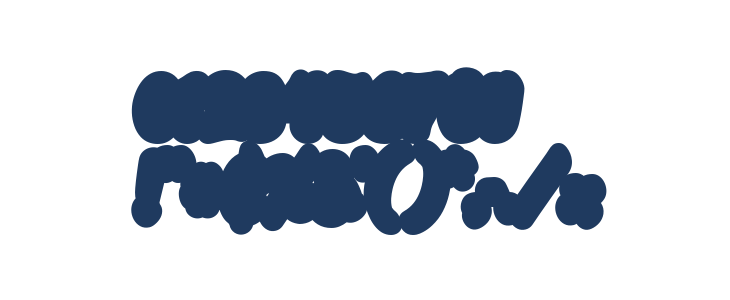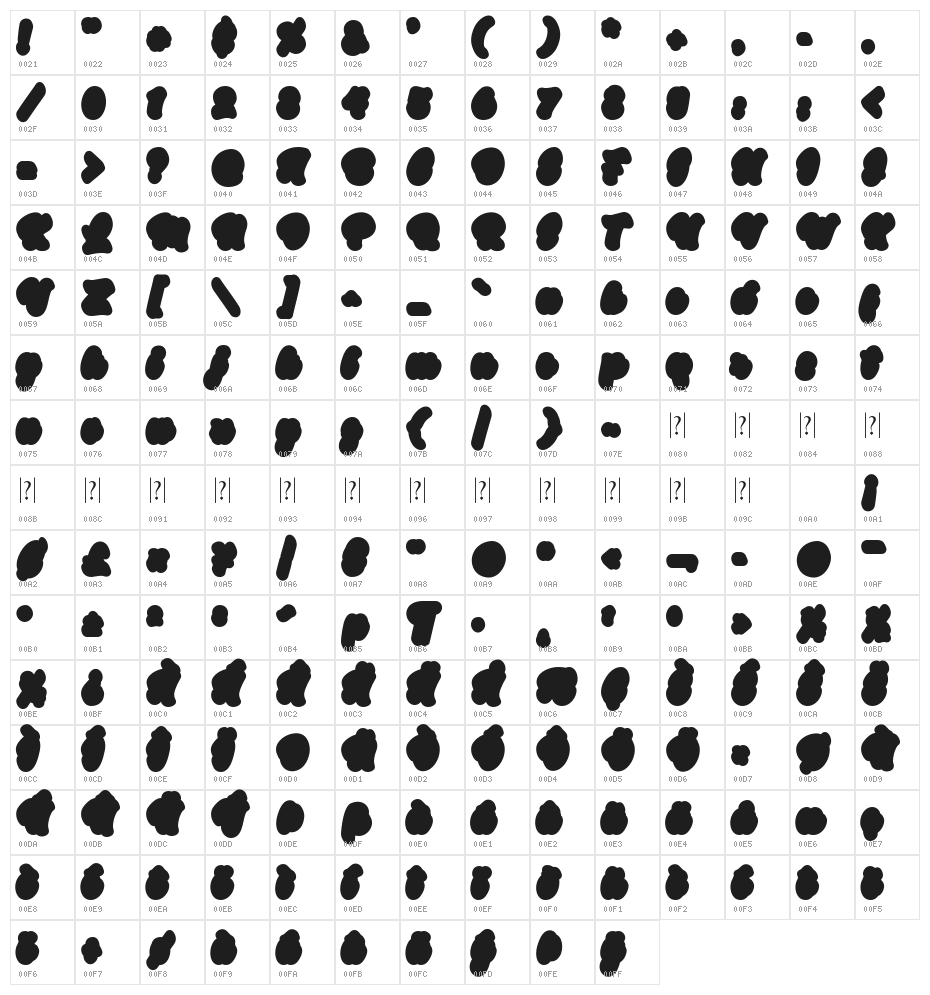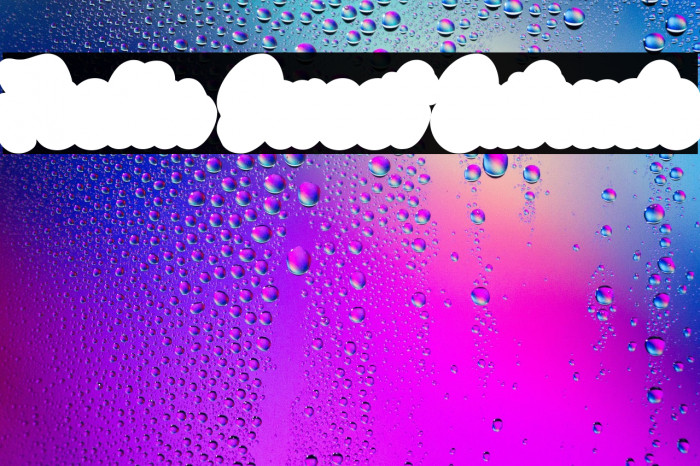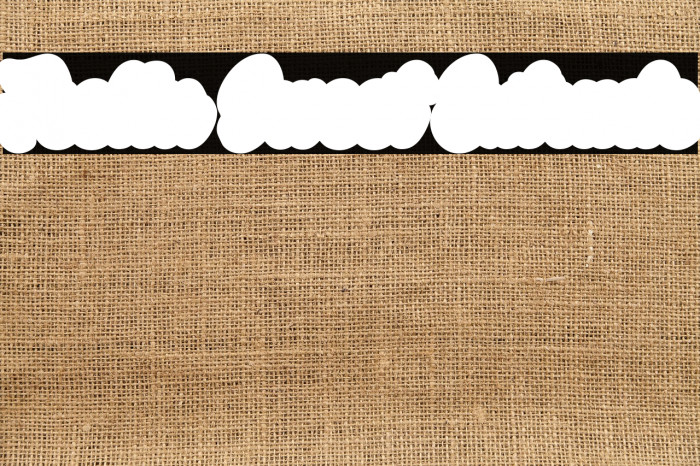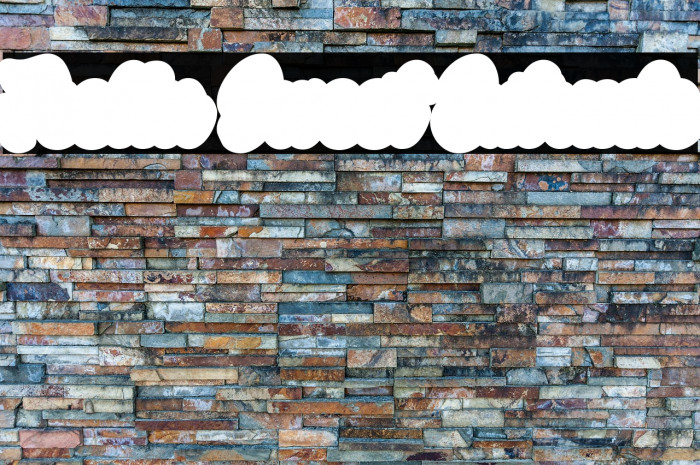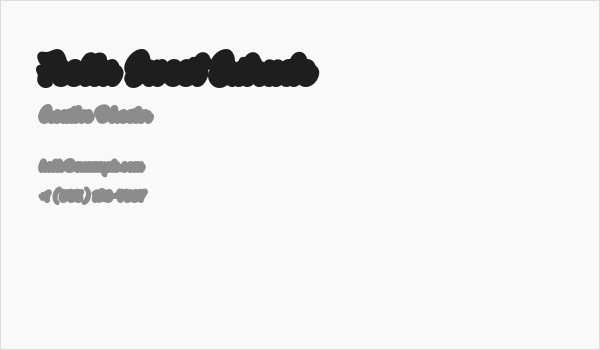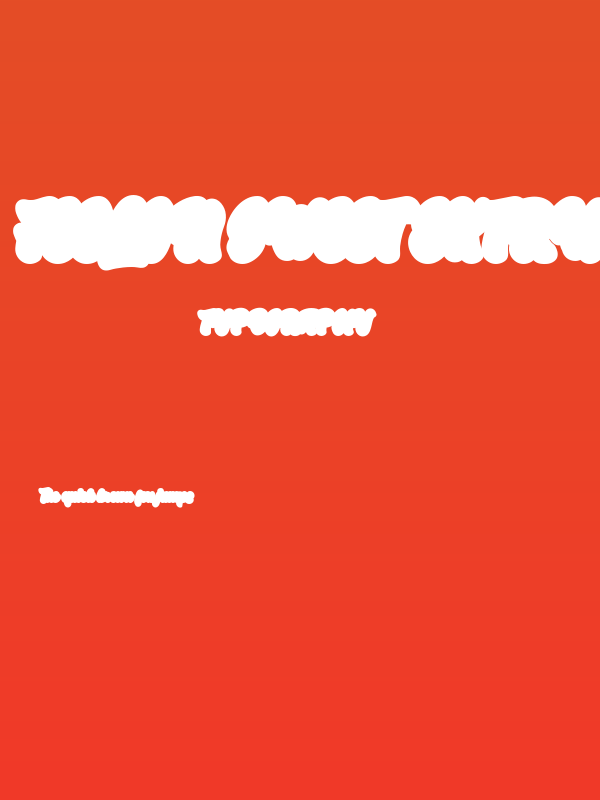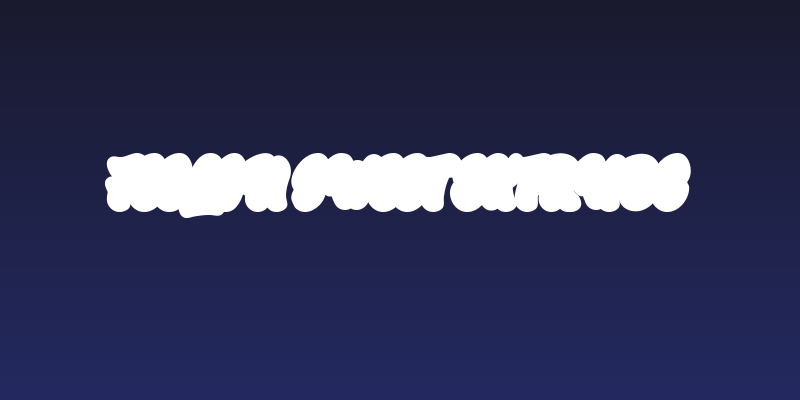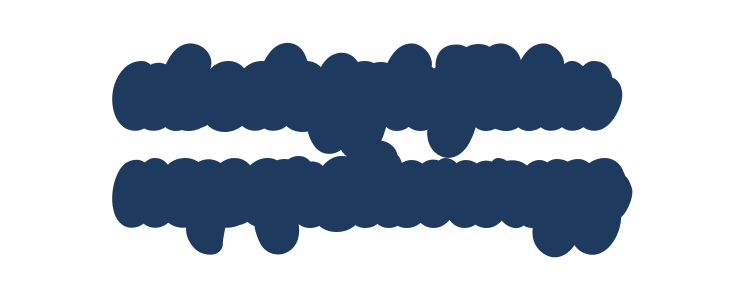
Feelin Sweet Extrude Font
Feelin Sweet Extrude Description
This playful and bold font features a bubbly, extruded style that gives it a three-dimensional appearance. The characters are rounded and thick, creating a sense of fun and whimsy. The exaggerated curves and soft edges make it ideal for designs that aim to convey a sense of joy and creativity. Its unique style stands out, making it perfect for eye-catching headlines or logos. The font's playful nature is complemented by its consistent weight and width, ensuring readability while maintaining its distinctive look.
| Overall Style | Playful, Fun, Whimsical |
| Proposed Projects | Ideal for children's book covers, playful branding, party invitations, and creative posters. |